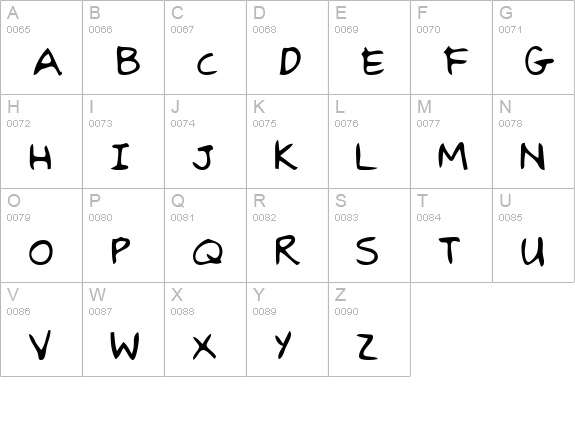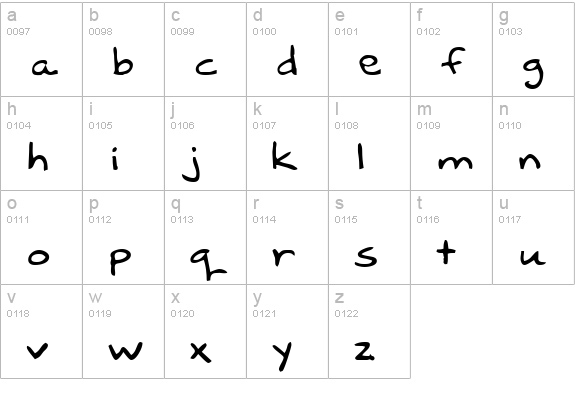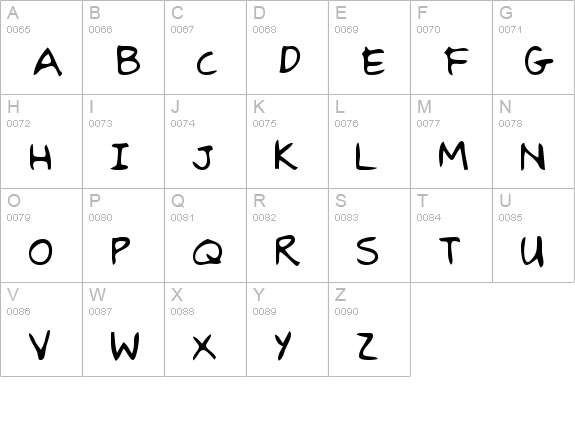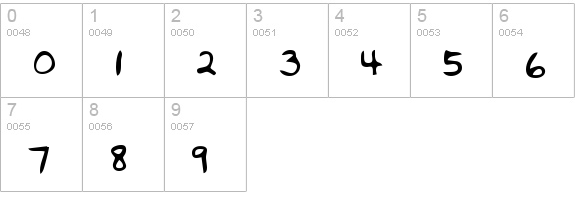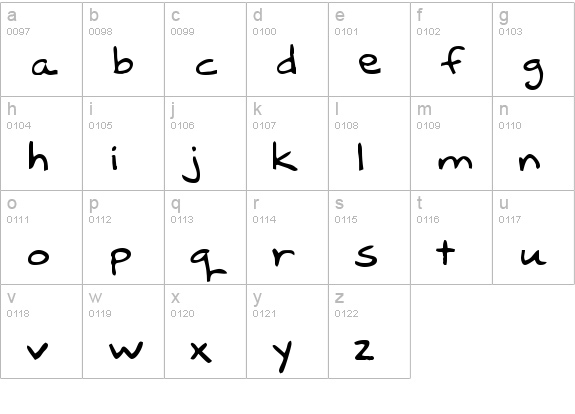
BrodysHand Regular is the standard, neutral variant in the BrodysHand typeface family \xE2\x80\x94 well suited to general body text, paragraphs, and standard typographic work.
BrodysHand Regular font is a charming and versatile typeface that exudes a sense of warmth and friendliness. With its handwritten style and casual appearance, this font is perfect for adding a personal touch to your projects. Whether you're designing greeting cards, invitations, or social media graphics, BrodysHand Regular font will bring a unique and inviting look to your work. Best of all, BrodysHand Regular font is available for free download at FontsMarket.com. You can easily access this delightful font and start using it in your designs without any cost. Don't miss out on the opportunity to enhance your projects with the welcoming and approachable vibe of BrodysHand Regular font. Download it today and let your creativity shine!